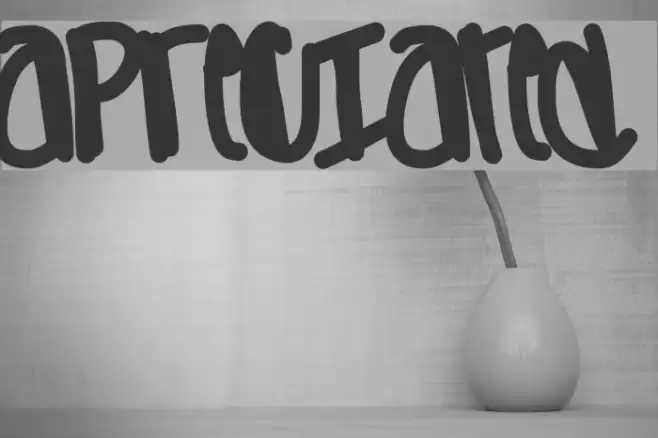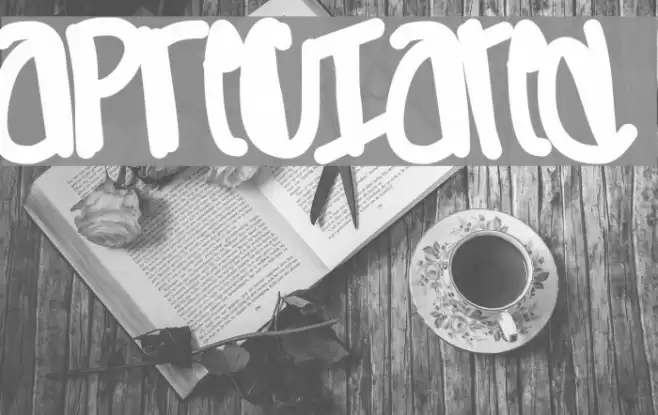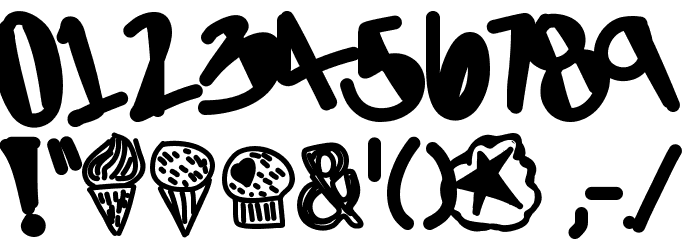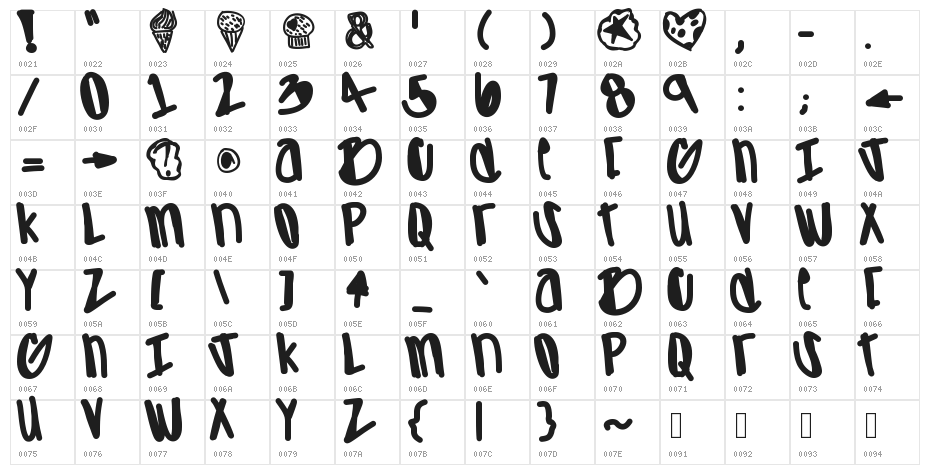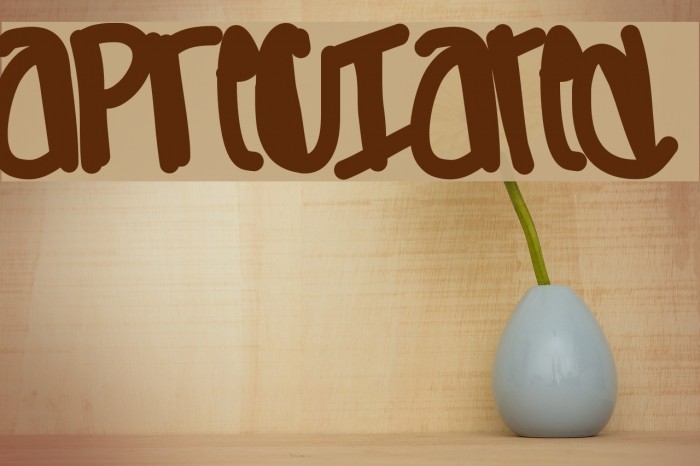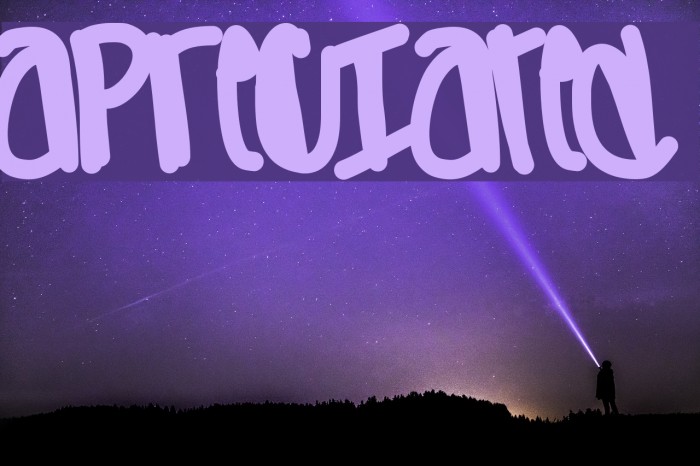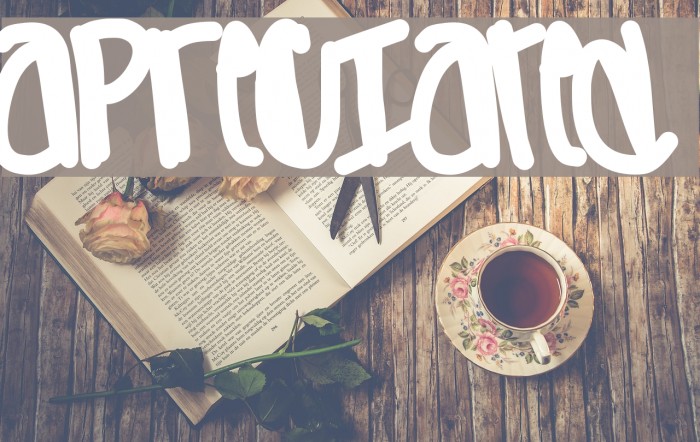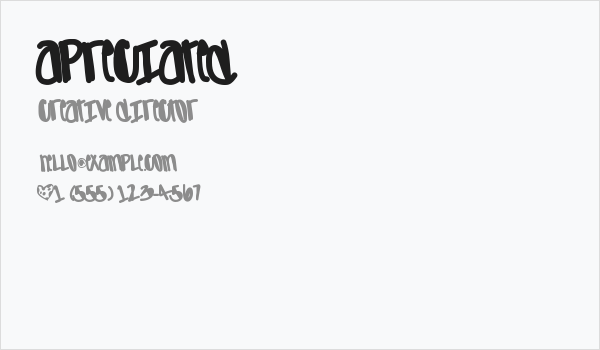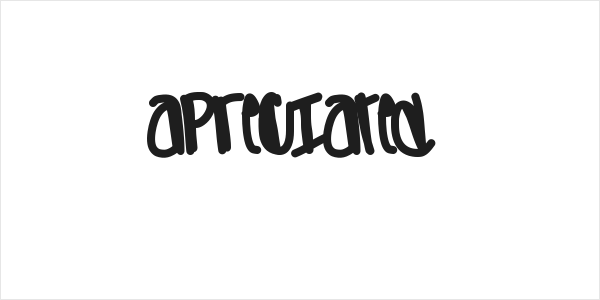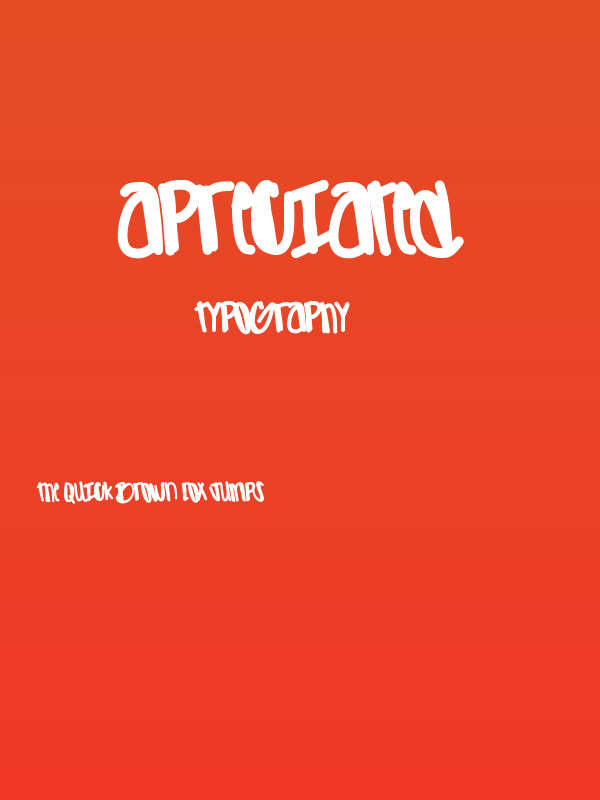
Apreciated Font
Apreciated Description
This font features a bold, playful, and highly expressive style, characterized by its thick strokes and rounded edges. The letters are crafted with a casual, handwritten flair, giving it a dynamic and energetic appearance. The uppercase and lowercase letters maintain a consistent style, with a slight slant that adds to the informal and lively feel. The numbers and special characters are equally bold and match the overall aesthetic, making them stand out. This font is perfect for projects that require a fun and engaging look, such as children's books, posters, or event invitations.
A bold, playful handwritten font with thick strokes and rounded edges from Uncategorized fonts.
- Proposed Projects: Ideal for children's books, playful posters, event invitations, and creative branding.
- Overall Style: Playful